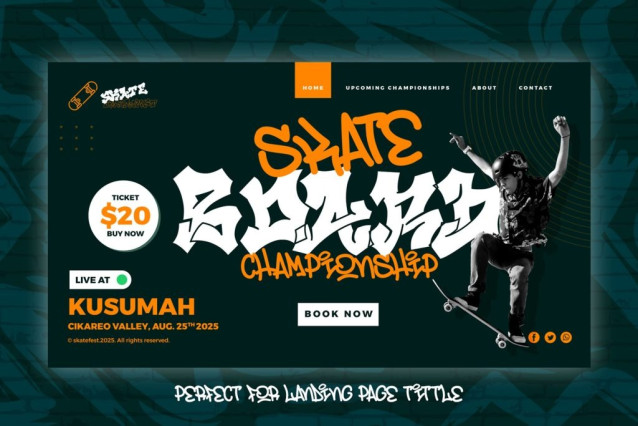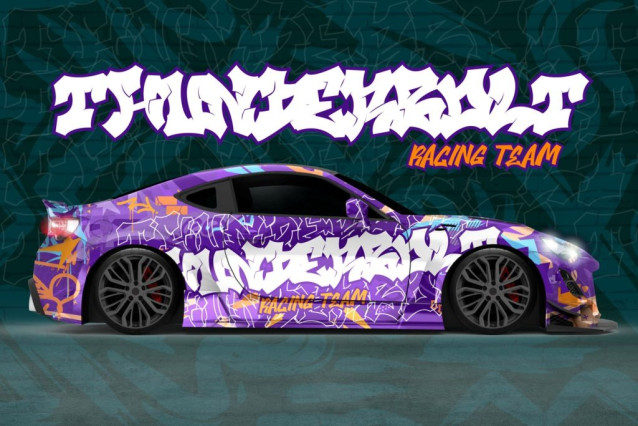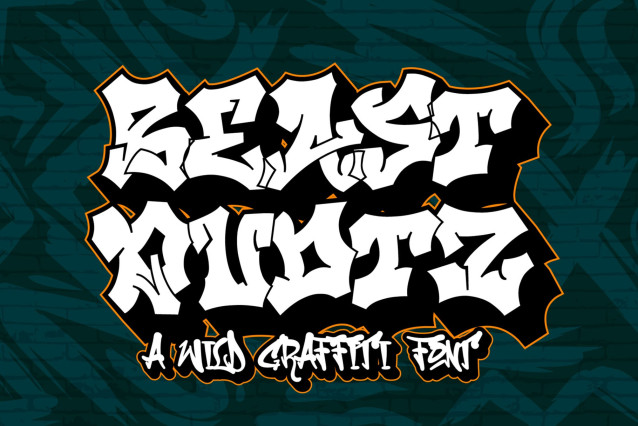
Beast Quotz Font
Beast Quotz Font is a bold and untamed wildstyle graffiti font inspired by classic street tags and hip-hop mural art. This font brings high-energy vibes with sharp edges, exaggerated strokes, and expressive attitude — perfect for creatives who love pushing boundaries.